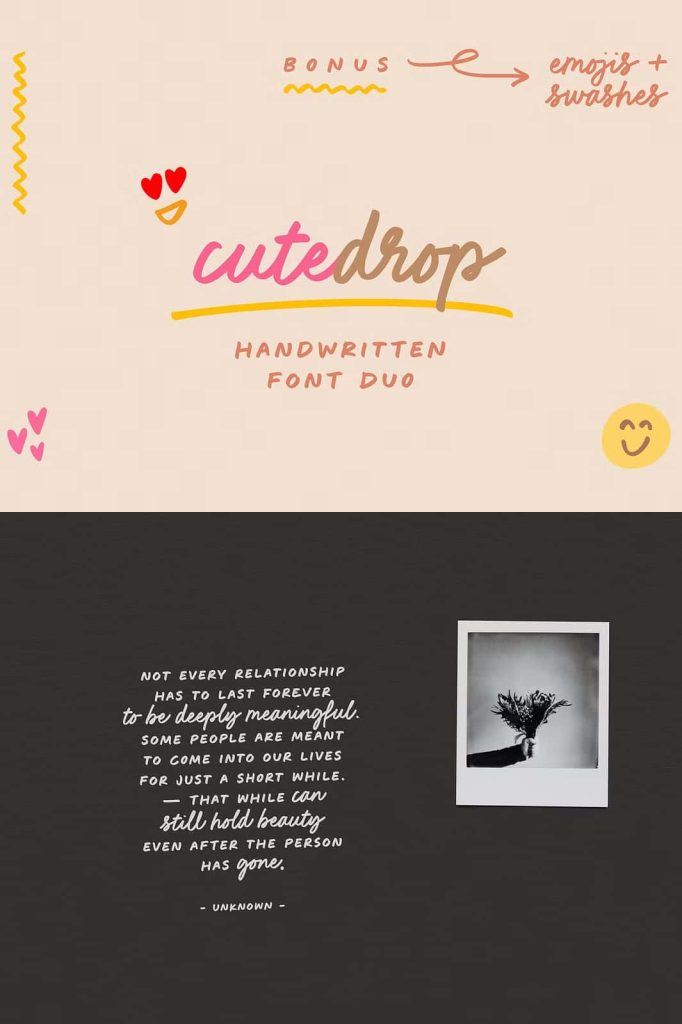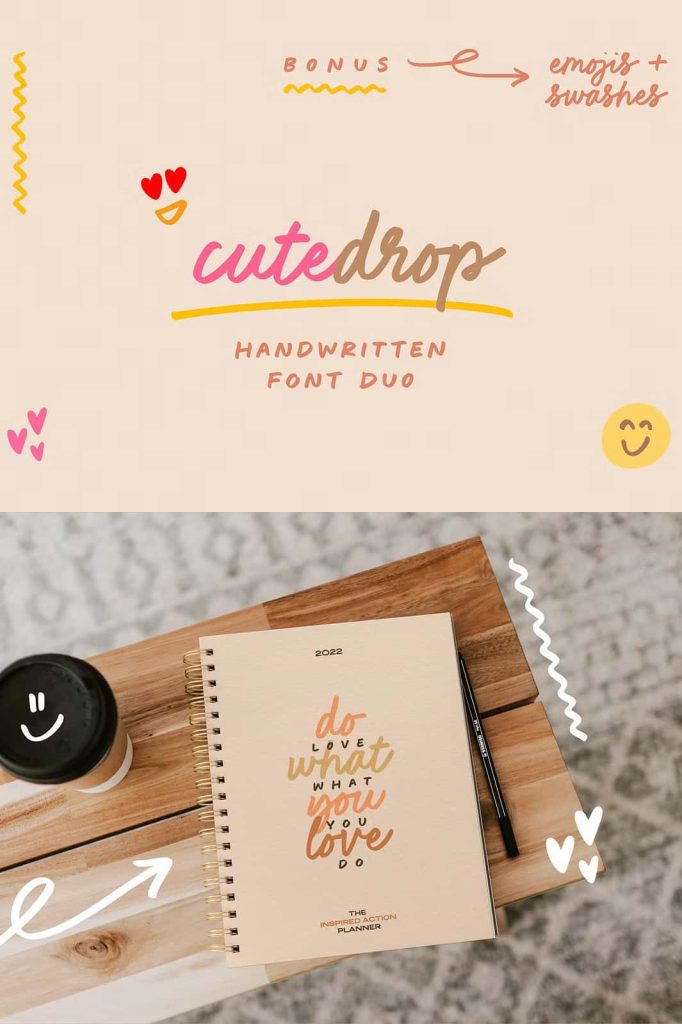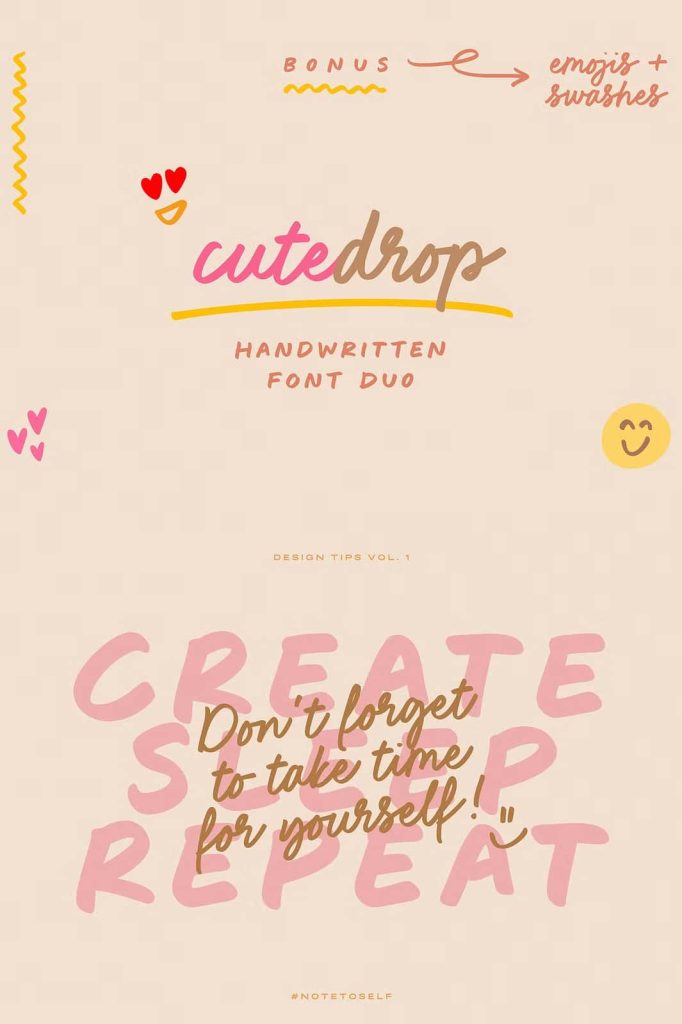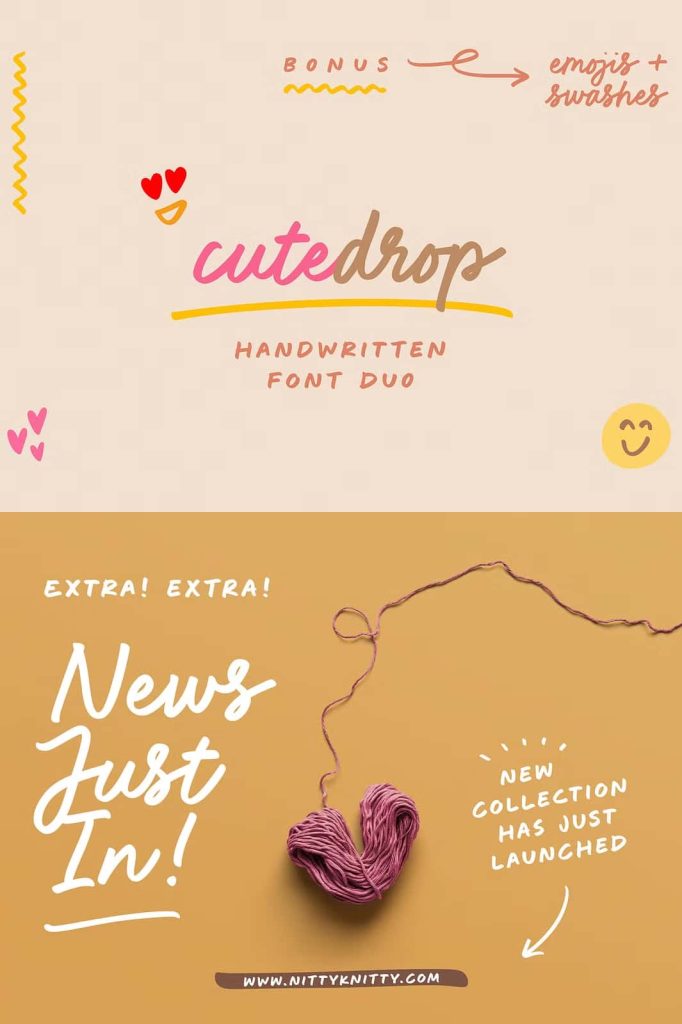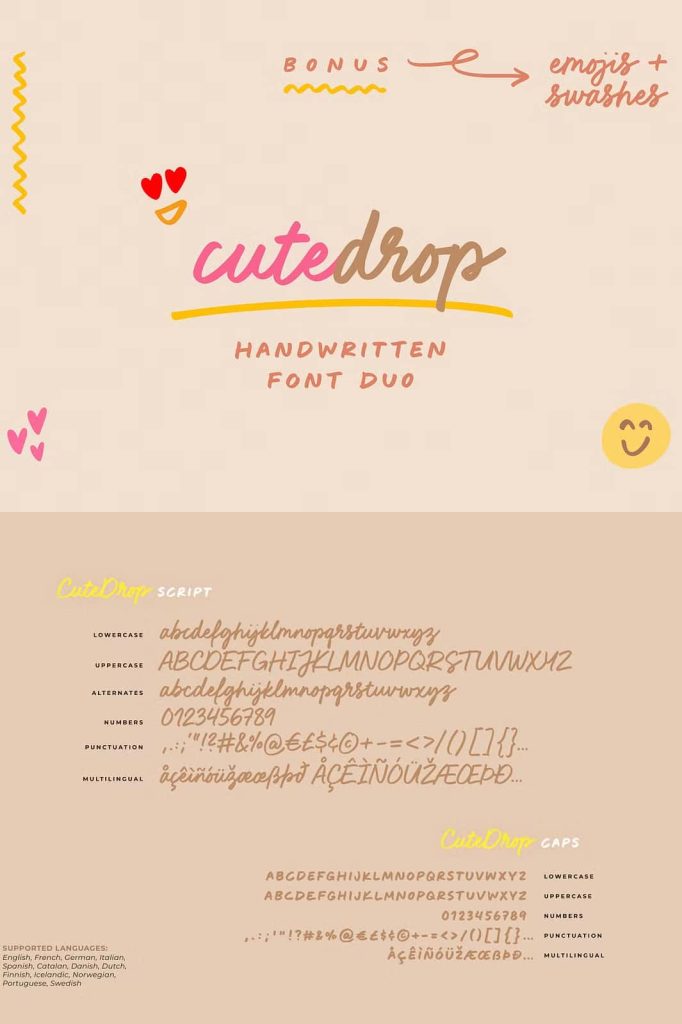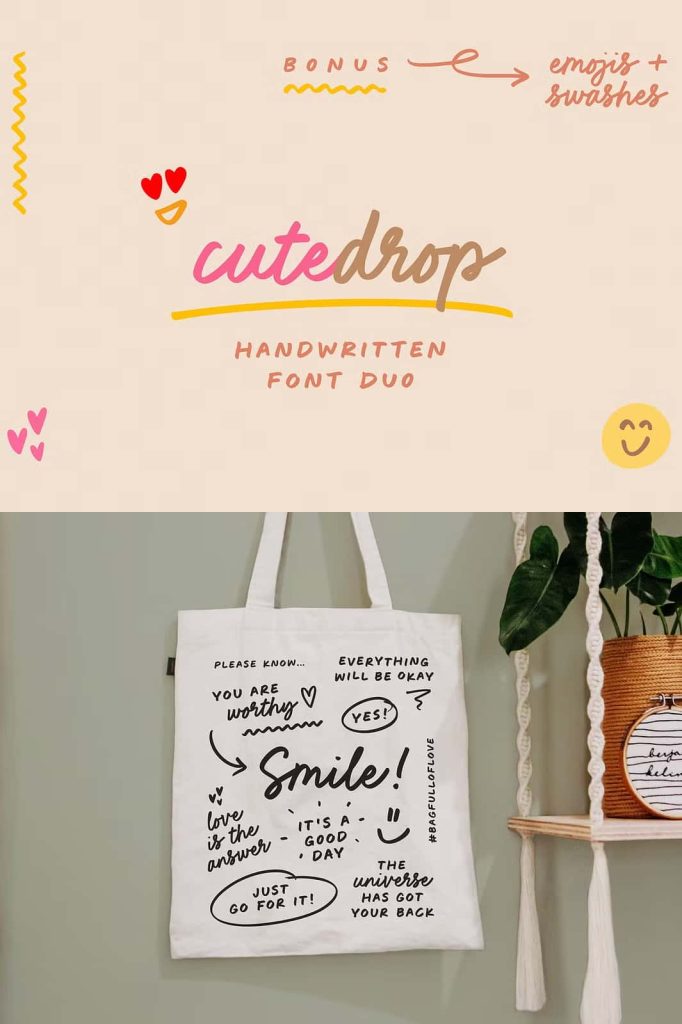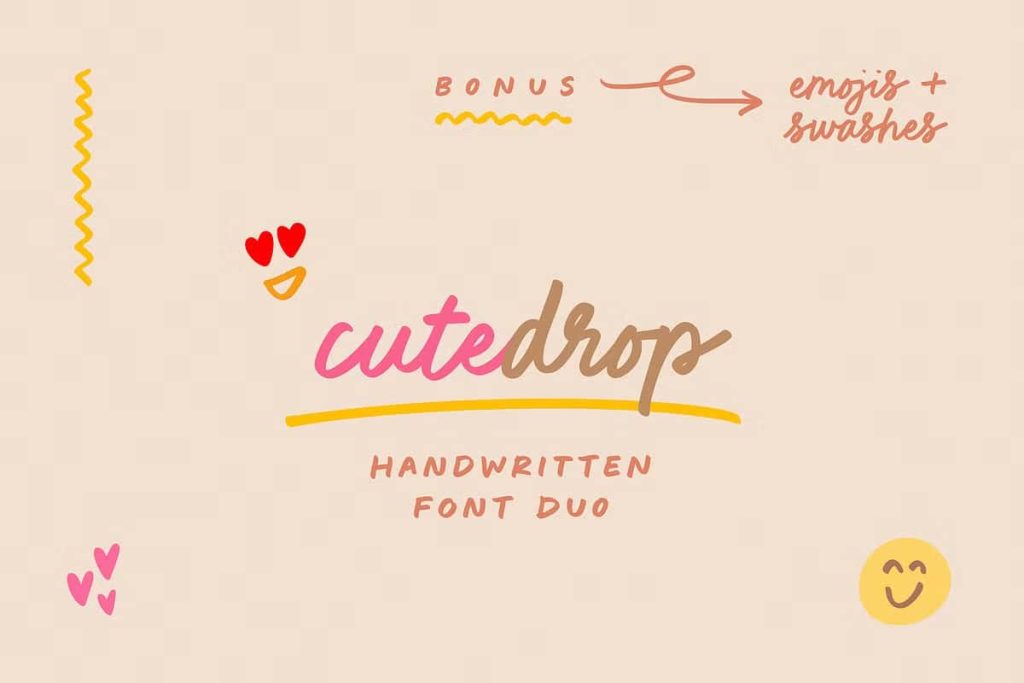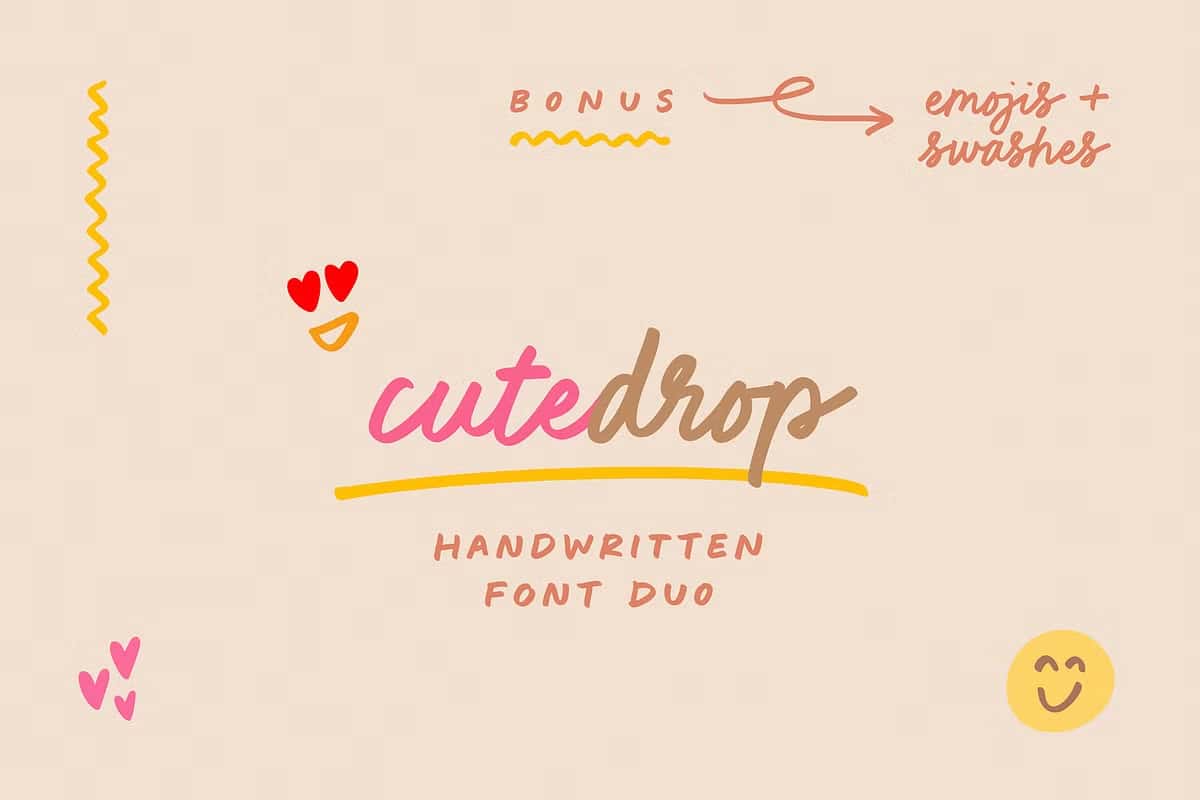
CuteDrop handwritten font duo & moredezzignerJuly 17, 2024Fonts Well, hello there! 😍 CuteDrop is a, ahem, cute handwritten font duo with a matching script and all caps font. Download